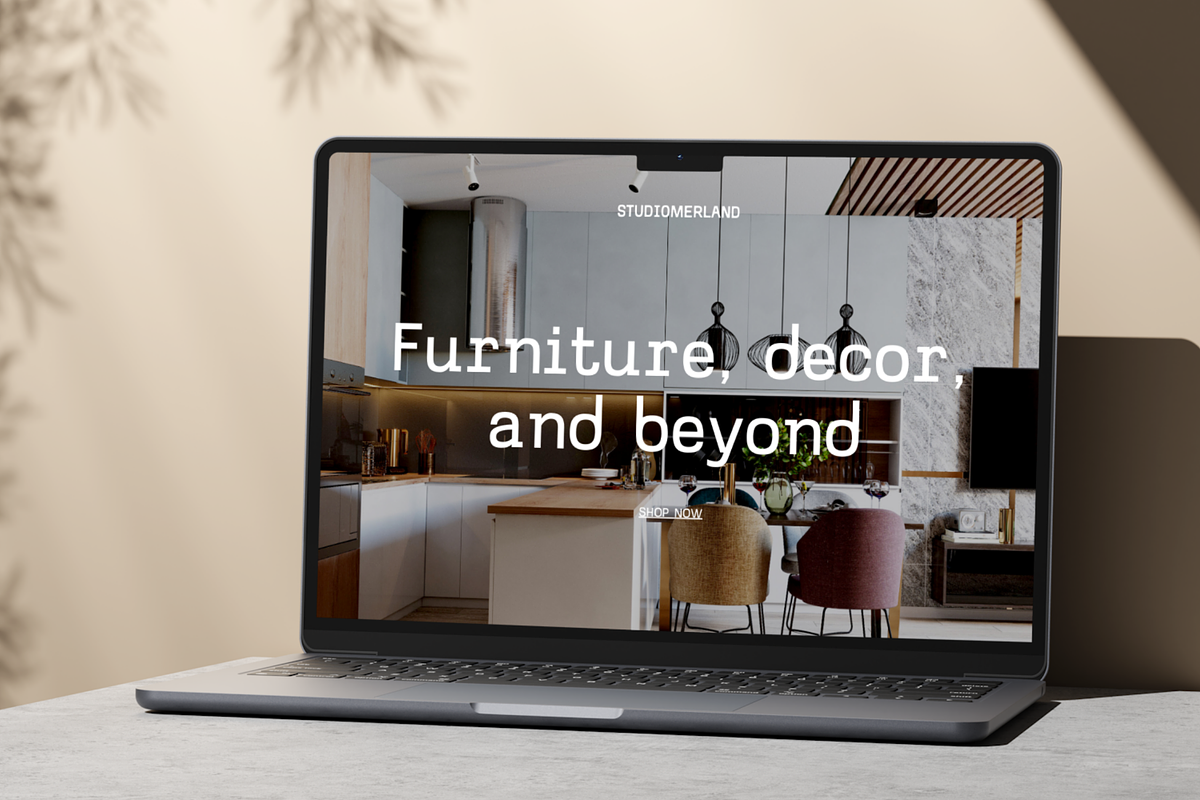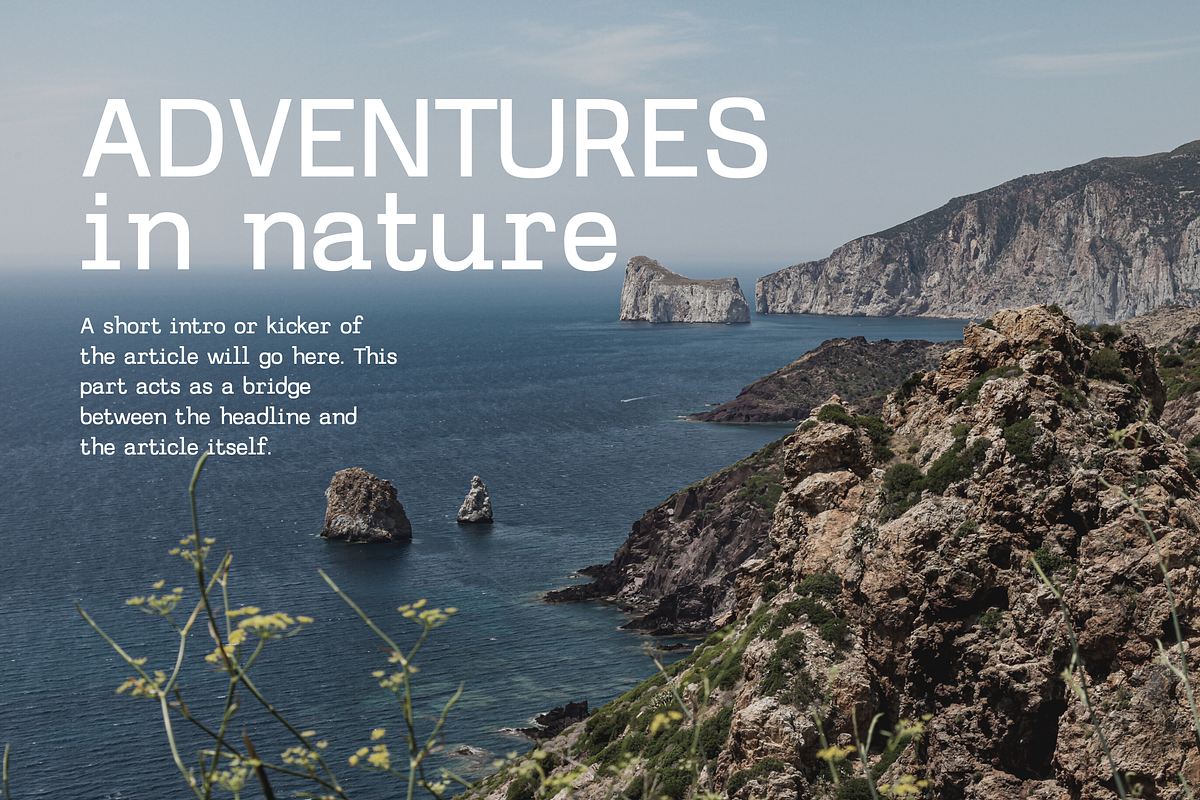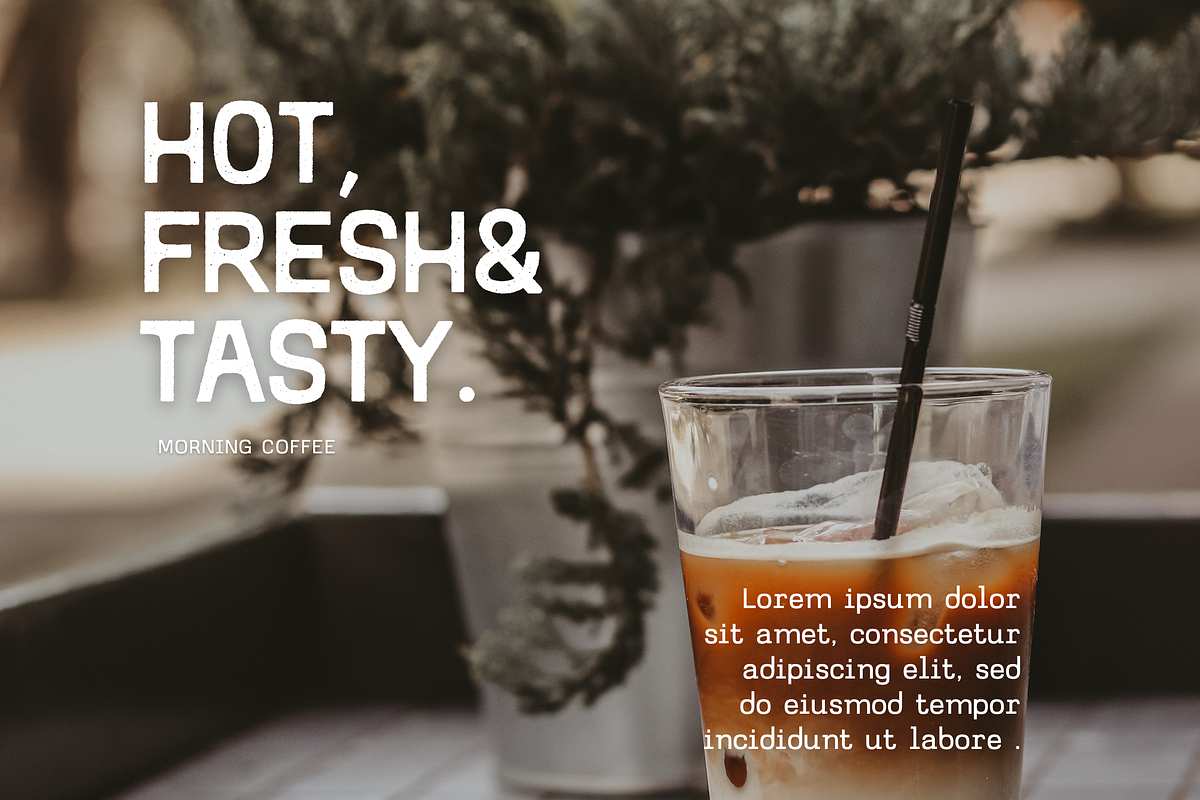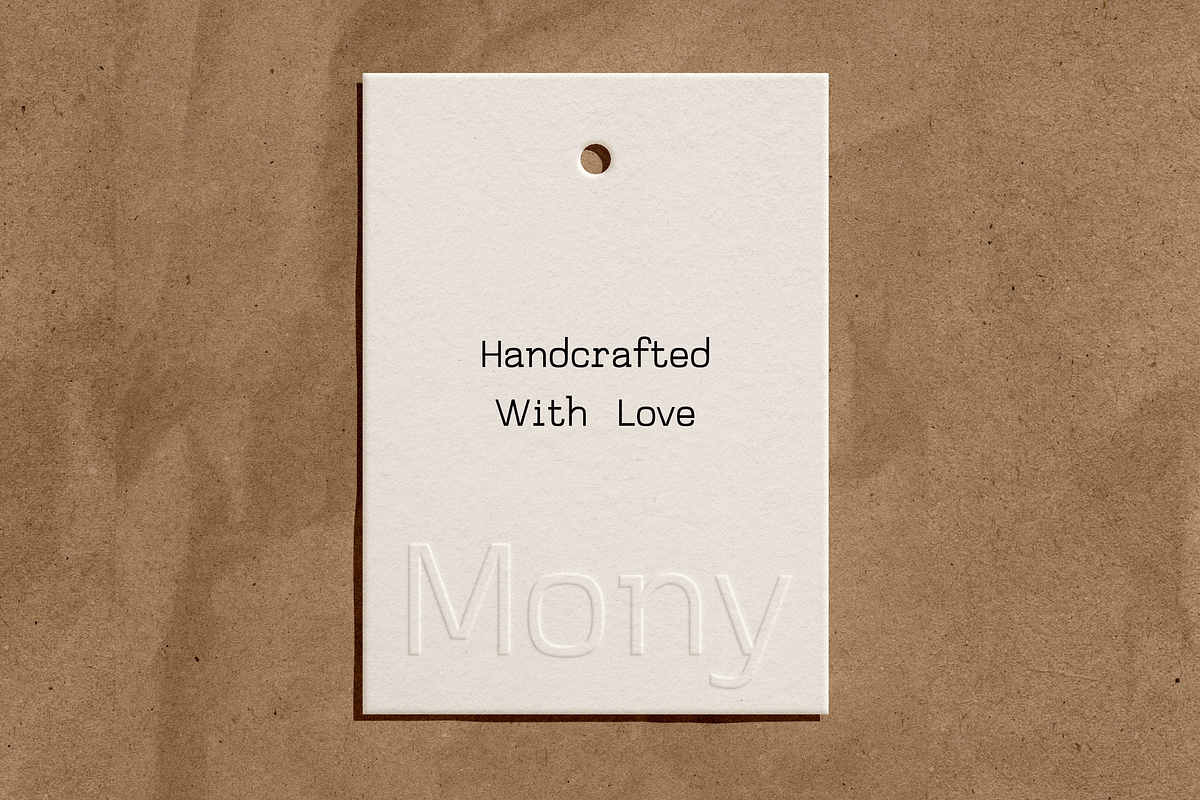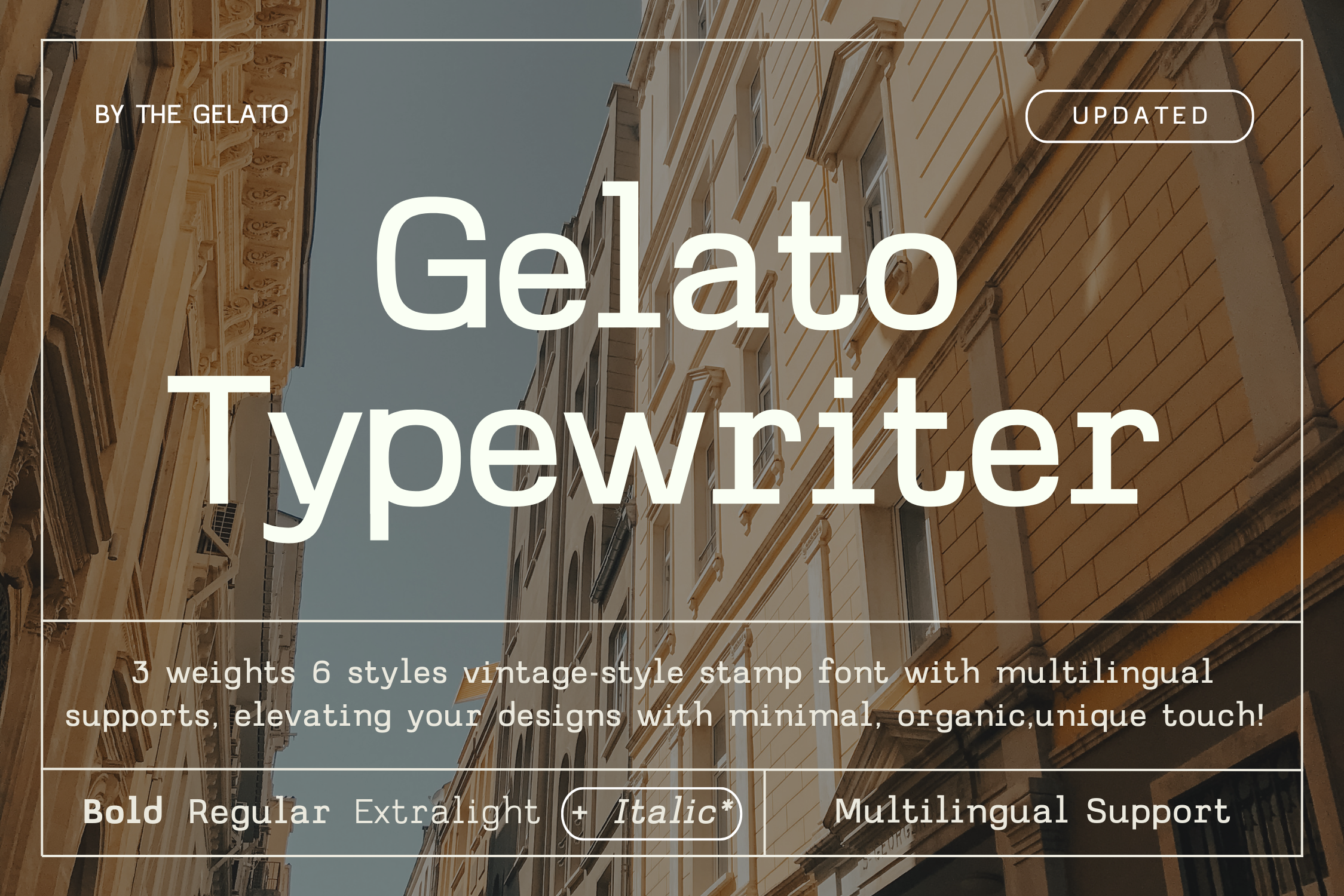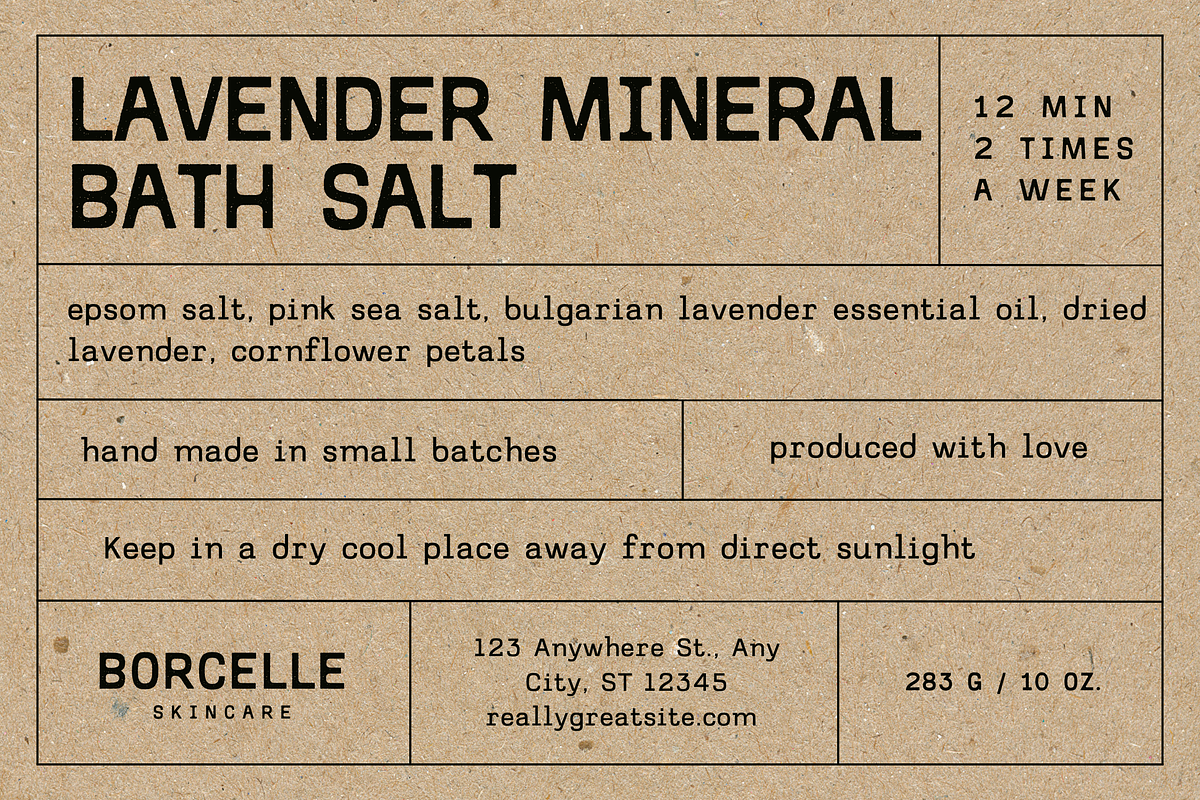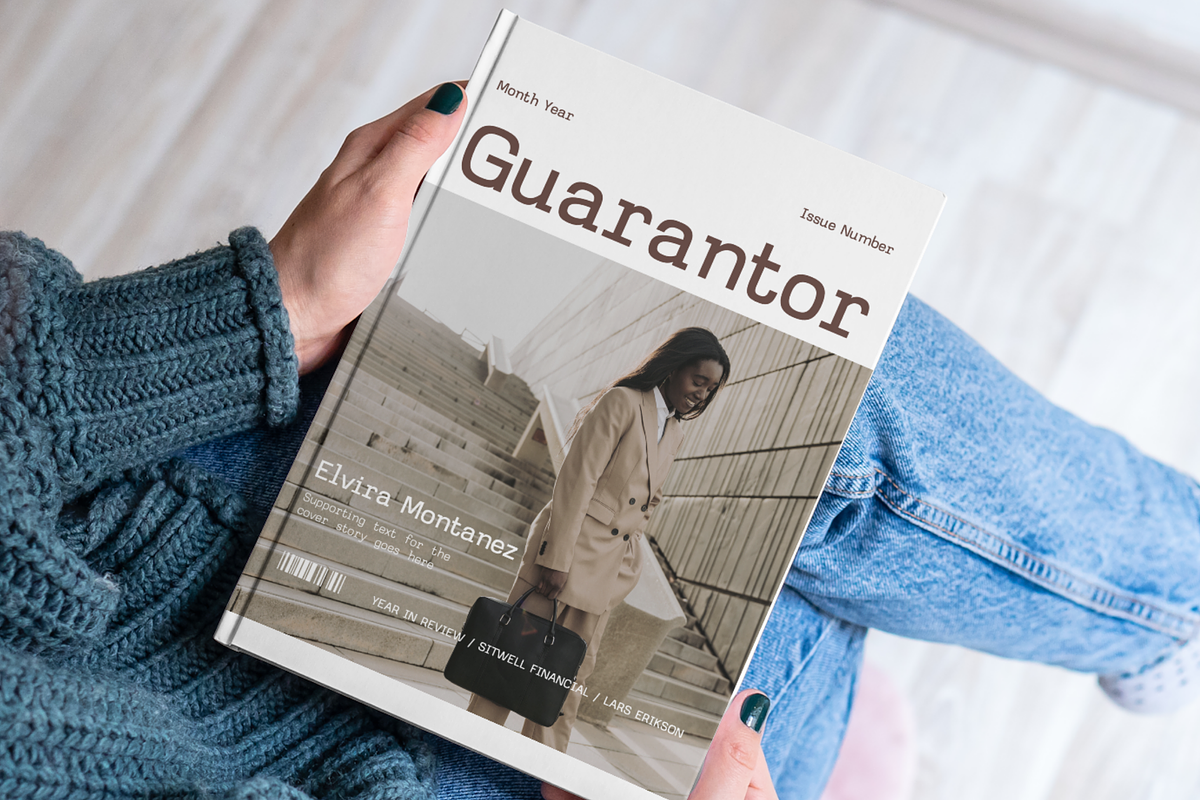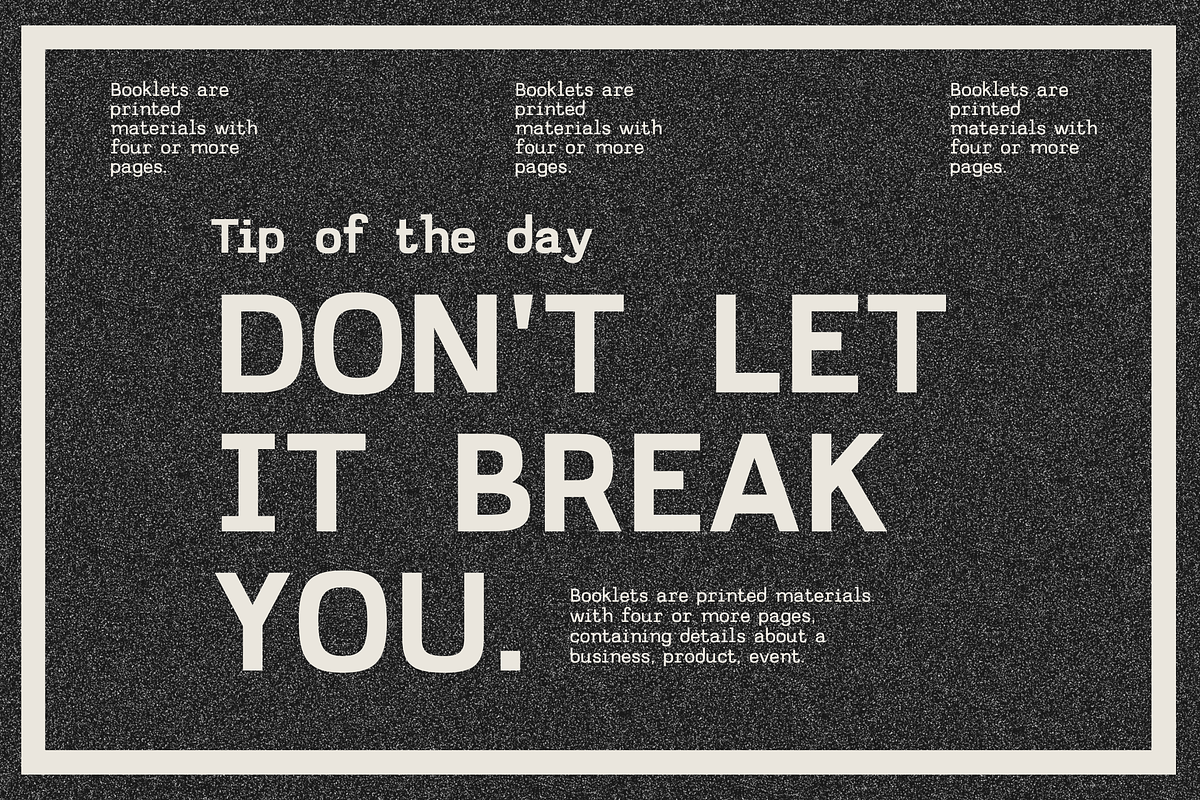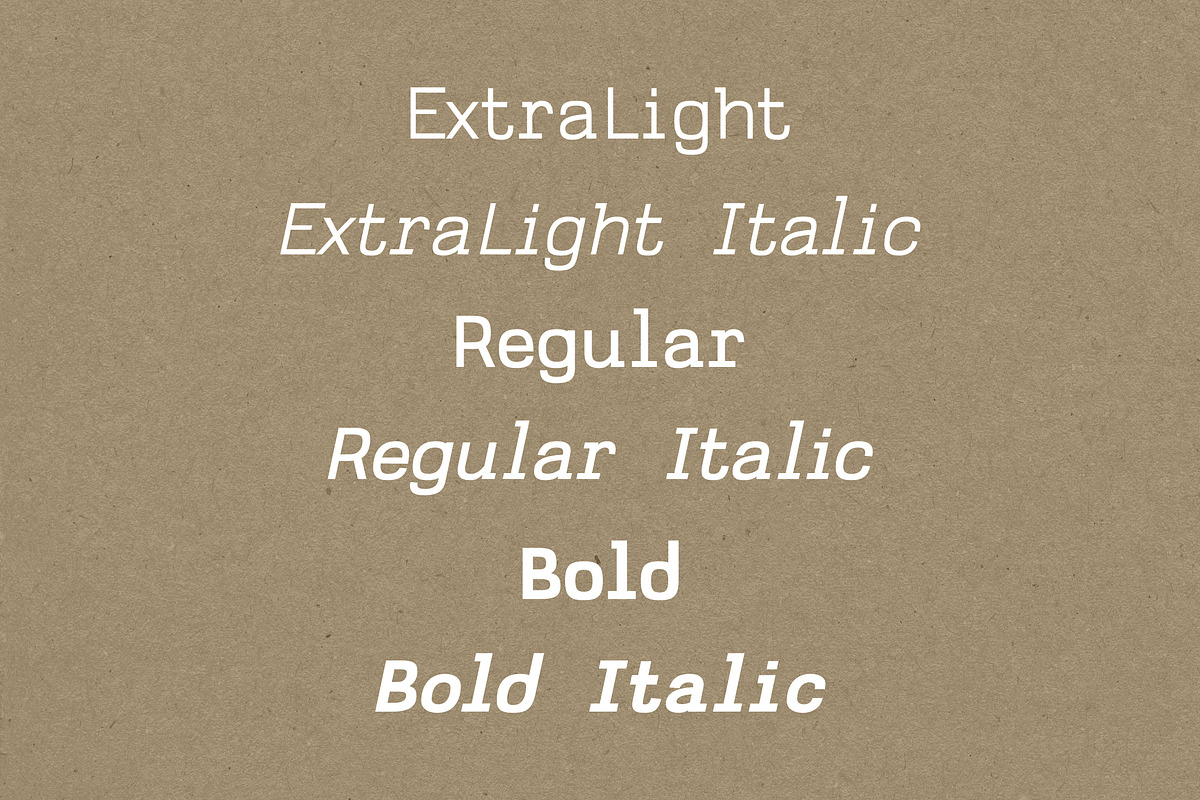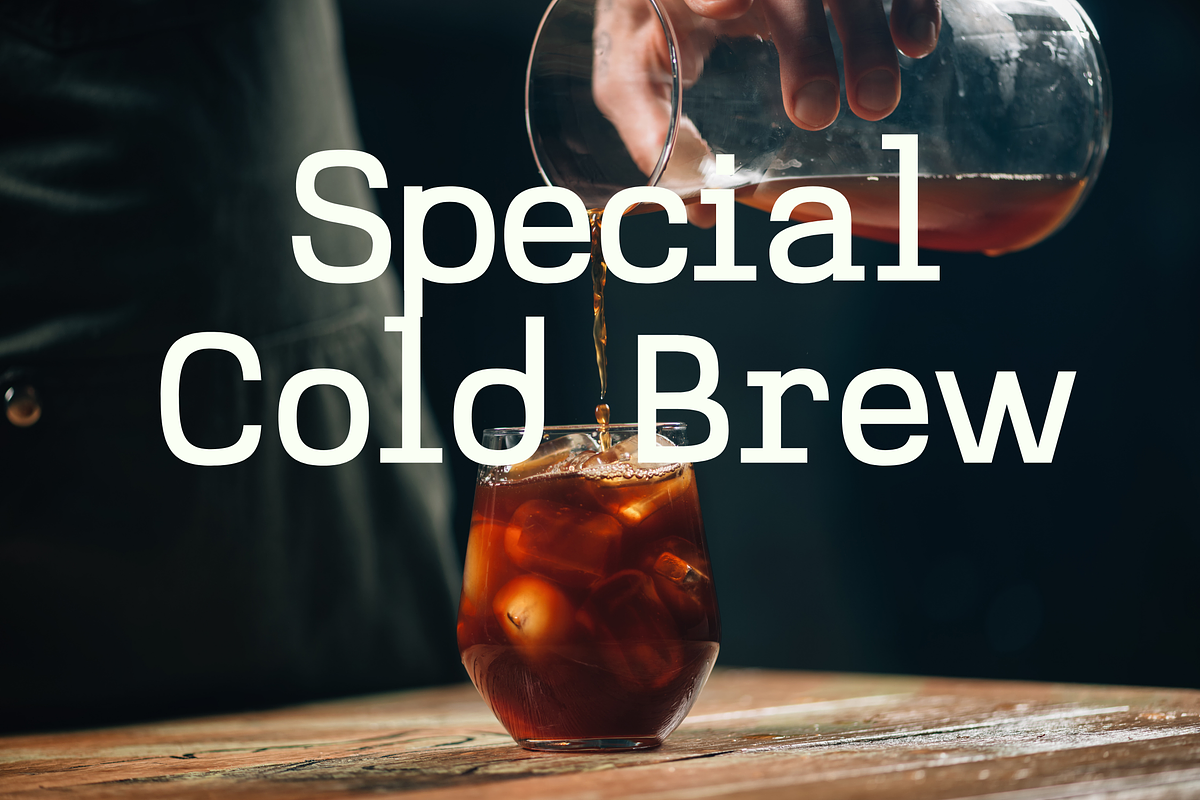
Gelato Typewriter Vintage Stamp Font
Gelato Typewriter is a 3 weights 6 styles vintage-style stamp font with multilingual supports, elevating your designs with a minimal, organic, unique touch! Can be used as a Typewriter Minimal Font, Vintage Stamp Font, Editorial Monospace Font, Packaging Label Font, Geometric Clean Font, Organic Branding Font, Brand Logo Font, Aesthetic Font, Premium Packaging Font, Fashion Canva Elegant font, Stylish Urban Font, Minimal Procreate Font, Typography Canva Font, Magazine Layout Font
Perfectly suitable for numerous use such as quotations, banners, logos, product packaging, titles, headers, Business cards, menu lists, and invitation cards!
REGULAR | BOLD | EXTRA LIGHT | REGULAR ITALIC | BOLD ITALIC | EXTRA LIGHT ITALIC